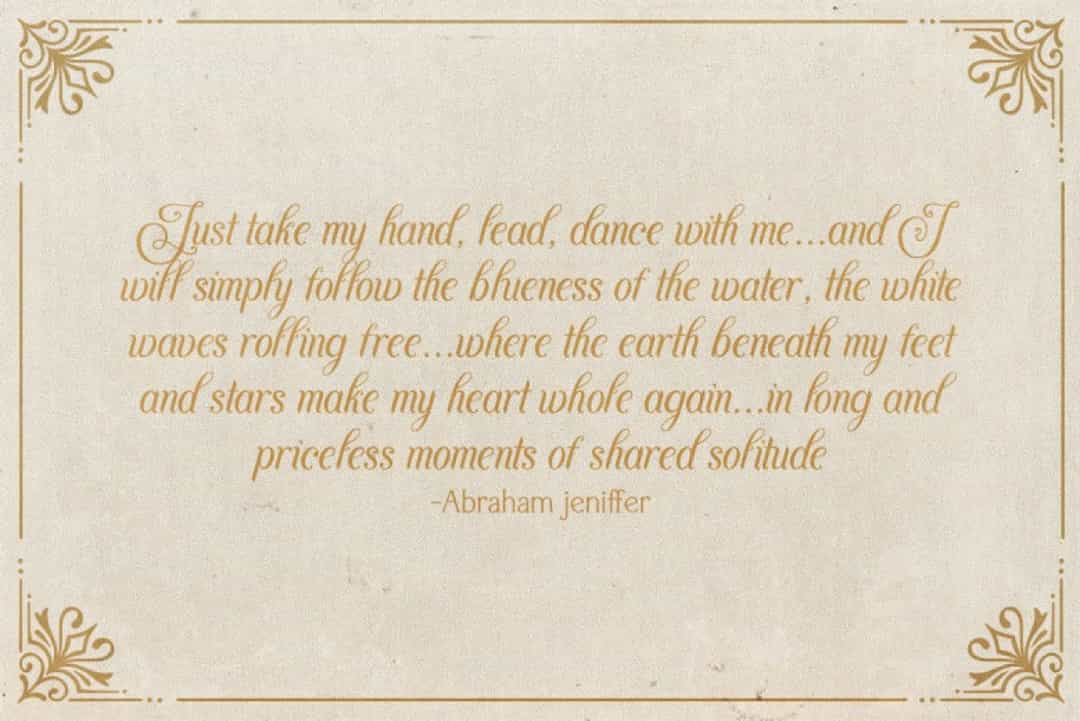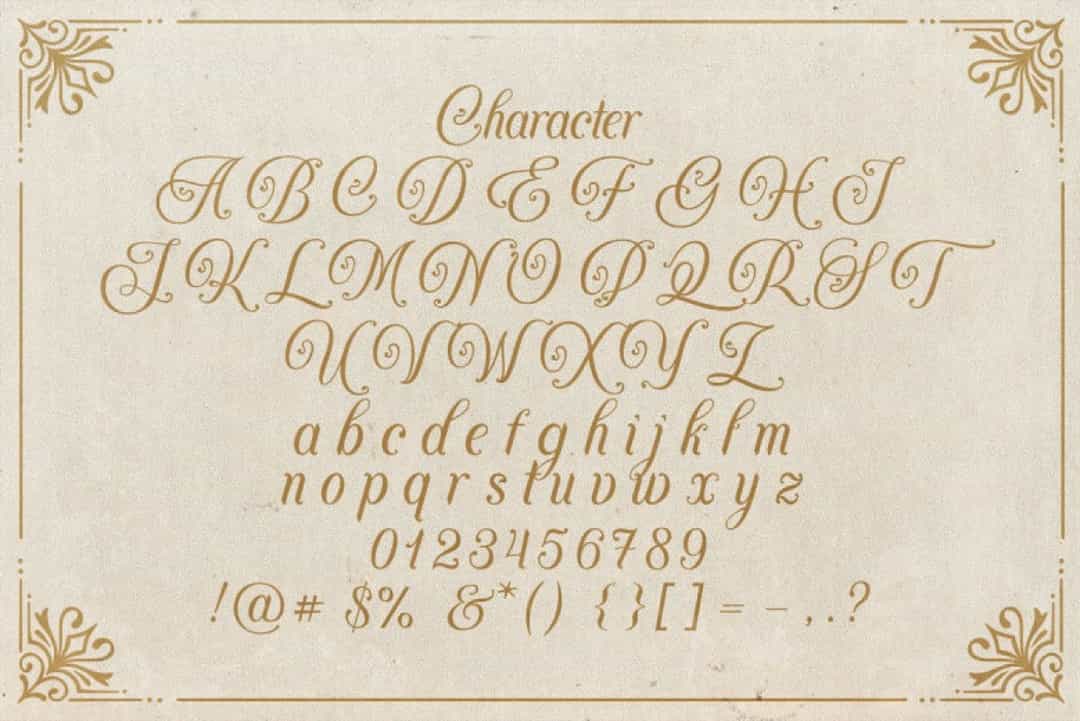
Agenda King Font is an elegant vintage calligraphy font with an attractive background that consists of smooth lines. Modern yet heartfelt, Agenda King font is ideal for adding modernity and affectionate charm to logos or designs.